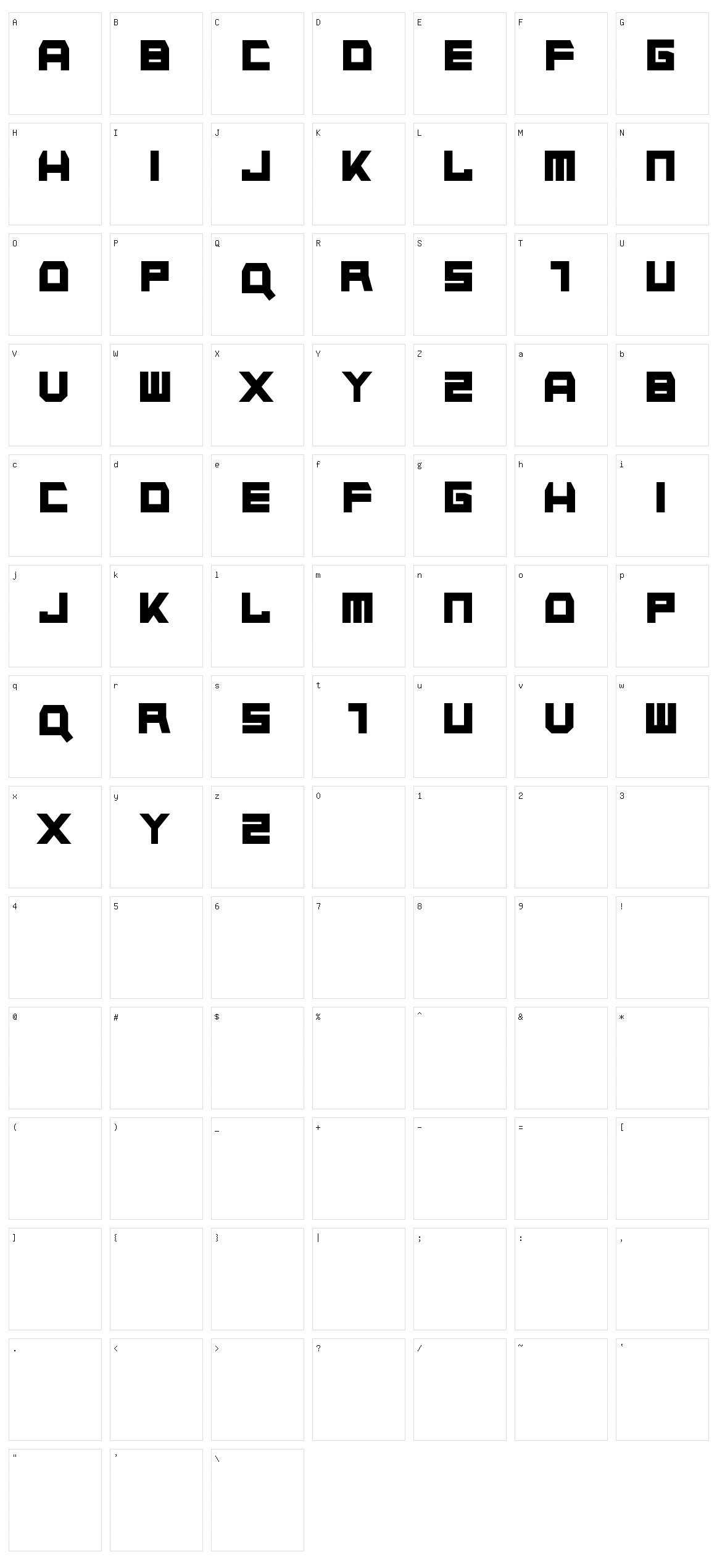
The free font Napalm Strike is carefully designed by Menty B Arts, showcasing a thoughtful balance of creativity and usability and falls under the Square font style. When you download the ZIP file, it contains only 8.4 KB of font files, making it lightweight and quick to download. Please review the license details below to understand permitted usage and distribution rights. If license information is not available, we recommend using this font for personal projects only or contacting the author directly for commercial usage permissions.